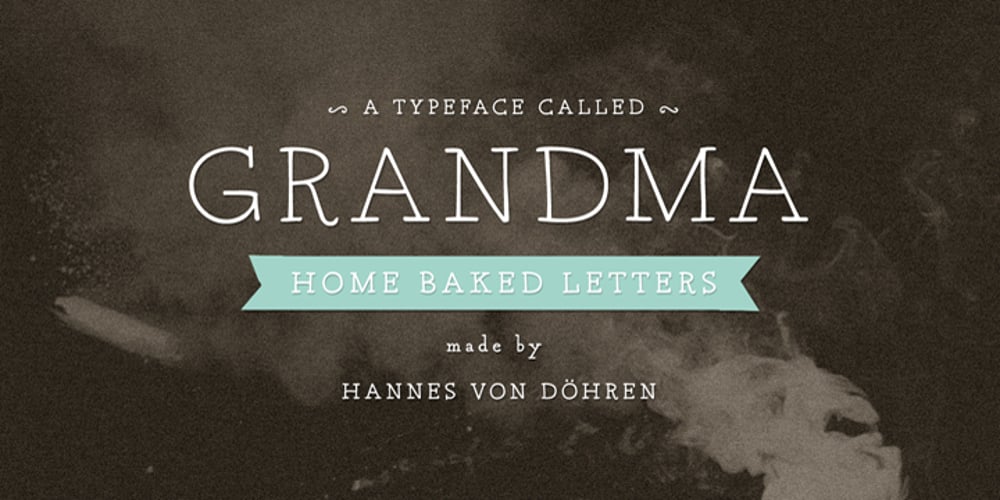
Grandma
Grandma font
Grandma Font Family was designed by Hannes von Döhren and published by HVD Fonts. Grandma contains 2 styles and family package options. Grandma is a lovely hand-drawn serif font. It is perfect for greeting cards, children’s books and everything that should have a handmade, kind feeling.